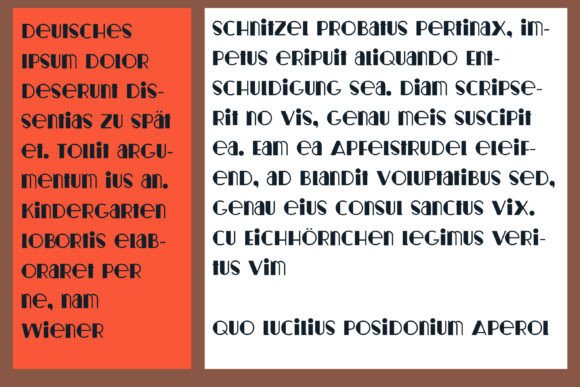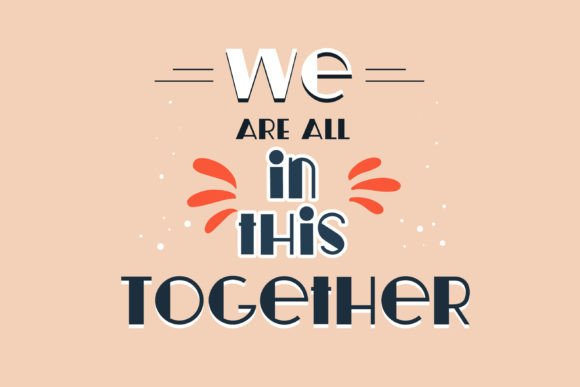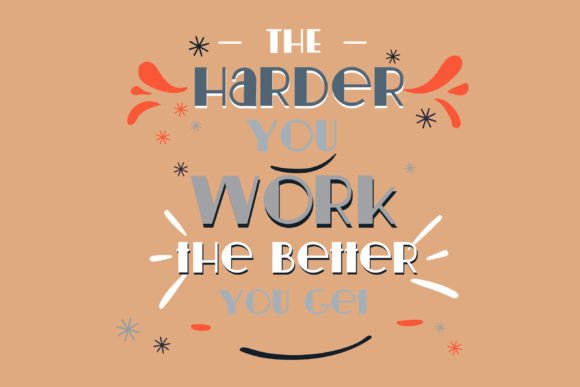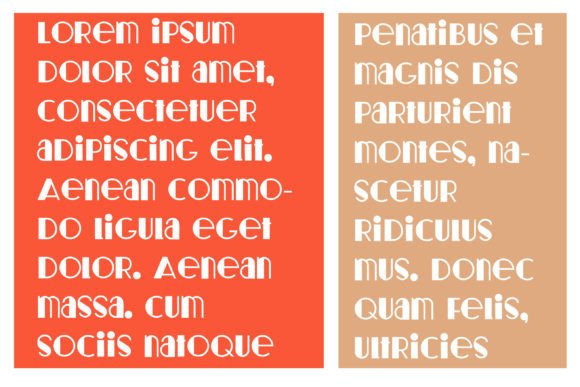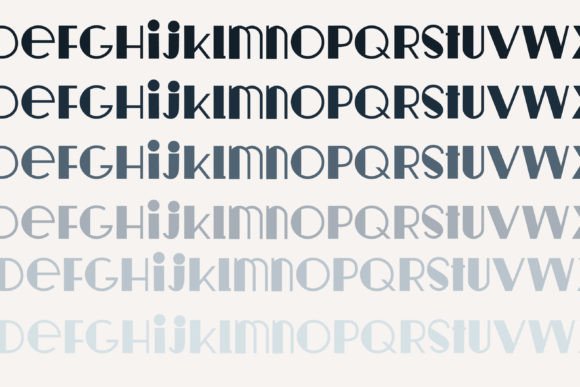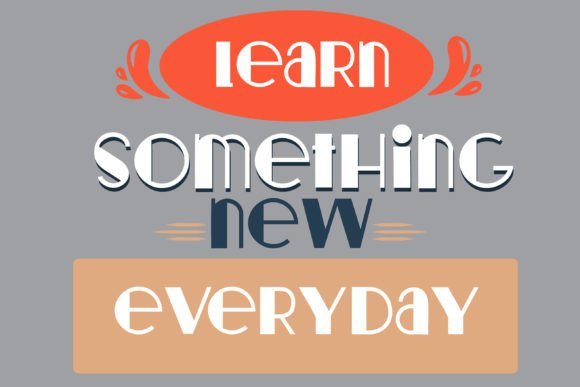
Dulator Font: Elevate Your Designs with a Retro Twist
In the world of typography, fonts play a crucial role in conveying the tone and personality of a design. For designers and crafters looking to add a touch of nostalgia and sophistication to their creations, the Dulator font is an excellent choice. This squat sans serif font boasts a retro/art deco feel that can instantly elevate any project.
The Unique Charm of Dulator Font
Dulator font is characterized by its distinctive squat and sturdy letterforms, which give it a robust and dependable appearance. The font’s sans serif design ensures that it remains clean and legible, even at smaller sizes. However, it’s the subtle art deco influences that truly set Dulator apart. The font’s geometric shapes, symmetrical lines, and classic proportions evoke a sense of luxury, glamour, and nostalgia.
One of the standout features of the Dulator font is its incredible versatility. Whether you’re working on a branding project, a website design, or a crafting project, this font can adapt to any style or theme. From modern and edgy to vintage and elegant, Dulator’s unique charm can complement a wide range of design aesthetics.
Key Features of Dulator Font
- Squat sans serif design: A sturdy and robust font that works well in various design contexts.
- Retro/art deco feel: Adds a touch of nostalgia, luxury, and sophistication to any design.
- Geometric shapes and symmetrical lines: Give the font a classic and timeless appearance.
- Excellent legibility: Ensures that your message is conveyed clearly, even at smaller font sizes.
- Versatile: Suitable for a wide range of design projects, from modern and edgy to vintage and elegant.
Use Cases for Dulator Font
The Dulator font can be used in a variety of design projects, including:
- Branding and logos: Create a lasting impression with a unique and memorable logo that showcases your brand’s personality.
- Web design: Add a touch of sophistication and elegance to your website with a font that works well on both desktop and mobile devices.
- Print design: Use Dulator font in brochures, flyers, posters, and business cards to create a cohesive and stylish visual identity.
- Crafting and DIY projects: Add a personal touch to your crafting projects, such as handmade cards, invitations, and gift tags.
Tips for Using Dulator Font Effectively
To get the most out of the Dulator font, consider the following tips:
- Experiment with font sizes: Dulator font works well at various sizes, from large headings to smaller body text.
- Pair with complementary fonts: Combine Dulator with other fonts to create a unique and harmonious typography scheme.
- Play with colors and textures: Add depth and interest to your design by experimenting with different colors and textures.
In conclusion, the Dulator font is an incredible asset for designers and crafters looking to add a touch of retro sophistication to their creations. With its unique charm, versatility, and excellent legibility, this font is sure to elevate any design project. Whether you’re working on a branding project, website design, or crafting project, Dulator font is an excellent choice.